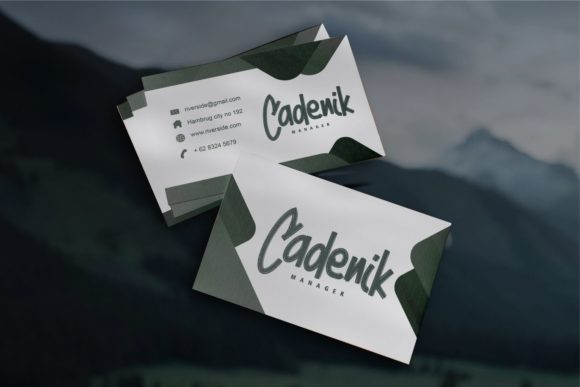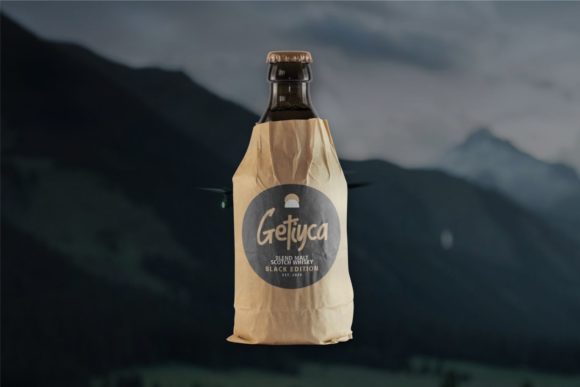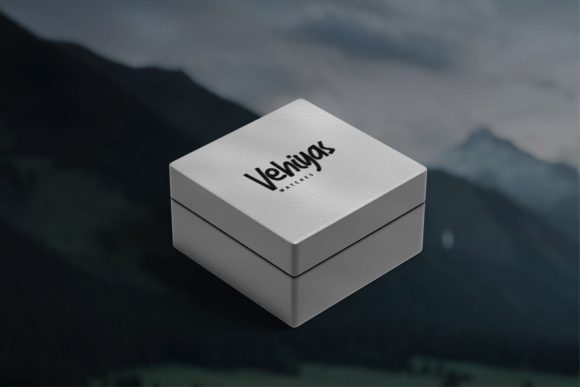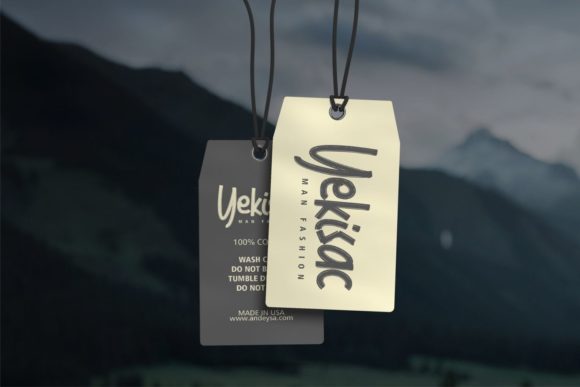
Introducing Anttuno Font: Elevate Your Designs with Bold Brush Calligraphy
Are you a designer or crafter looking for a unique and beautiful font to elevate your creative projects? Look no further than Anttuno Font, a stunning bold brush font with a calligraphy style that’s perfect for making a statement. With its elegant and expressive strokes, Anttuno Font is ideal for a wide range of applications, from invitations and greeting cards to branding materials, business cards, quotes, posters, and more!
The Beauty of Anttuno Font
Anttuno Font is a masterful blend of bold and brush calligraphy styles, creating a truly one-of-a-kind typographic experience. Its confident and expressive strokes are perfect for grabbing attention and adding a touch of sophistication to any design. Whether you’re creating a formal invitation or a playful poster, Anttuno Font is sure to impress.
Anttuno Font is incredibly versatile, making it perfect for a wide range of creative projects, including:
- Invitations: Make your special occasions unforgettable with beautifully designed invitations that showcase Anttuno Font’s elegant calligraphy.
- Greeting Cards: Add a personal touch to your greeting cards with Anttuno Font’s bold and expressive strokes.
- Branding Materials: Establish your brand’s identity with Anttuno Font’s unique and memorable typography.
- Business Cards: Stand out from the crowd with business cards that feature Anttuno Font’s bold and sophisticated calligraphy.
- Quotes: Make your quotes and sayings truly inspiring with Anttuno Font’s elegant and expressive typography.
- Posters: Create eye-catching posters that showcase Anttuno Font’s bold and attention-grabbing calligraphy.
Why Choose Anttuno Font?
So why choose Anttuno Font for your creative projects? Here are just a few reasons:
- Unique Style: Anttuno Font offers a truly unique and distinctive calligraphy style that’s sure to set your designs apart.
- Elegant and Expressive: Anttuno Font’s bold and expressive strokes add a touch of elegance and sophistication to any design.
- Versatile: Anttuno Font is perfect for a wide range of creative projects, from formal invitations to playful posters.
Tips for Using Anttuno Font
To get the most out of Anttuno Font, here are a few tips:
- Experiment with Sizes: Anttuno Font looks great in a variety of sizes, from large and bold to small and elegant.
- Play with Colors: Anttuno Font’s bold and expressive strokes look great in a wide range of colors, from bright and bold to subtle and pastel.
- Mix and Match: Don’t be afraid to mix and match Anttuno Font with other fonts and design elements to create a truly unique look.
In conclusion, Anttuno Font is a stunning bold brush font with a calligraphy style that’s perfect for designers and crafters looking to elevate their creative projects. With its elegant and expressive strokes, Anttuno Font is ideal for a wide range of applications, from invitations and greeting cards to branding materials, business cards, quotes, posters, and more! So why wait? Download Anttuno Font today and start creating beautiful, one-of-a-kind designs that showcase your unique style and creativity.